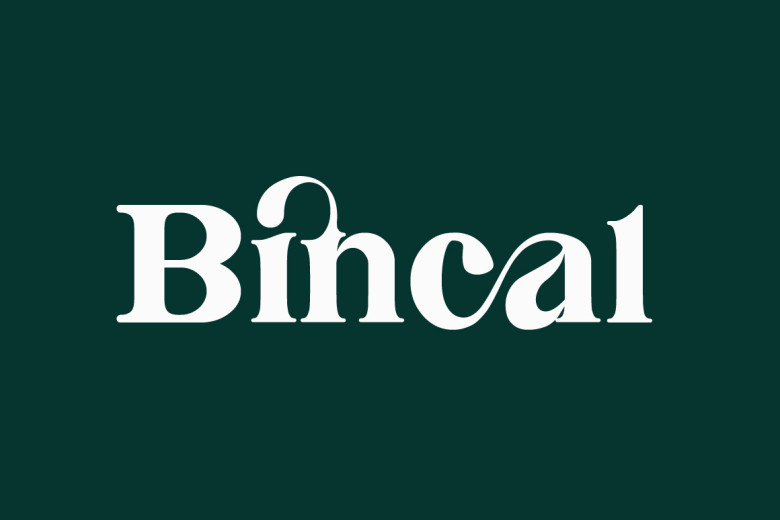
Bincal Font
Bincal is an elegant classic serif typeface. This font is both elegant and classy and works excellently for logos, magazine, social media, introductions, and much more. Already combined and ready to use together for your design! So for those of you who need elegant and light modern stylish, fashion, chic, sophisticated, and a bit of a modernity, this font was made for you.
Bincal Composite has a bonus feature OpenType features and includes ligatures, alternatives, numbers, commas, and punctuation.
Bincal Serif Font